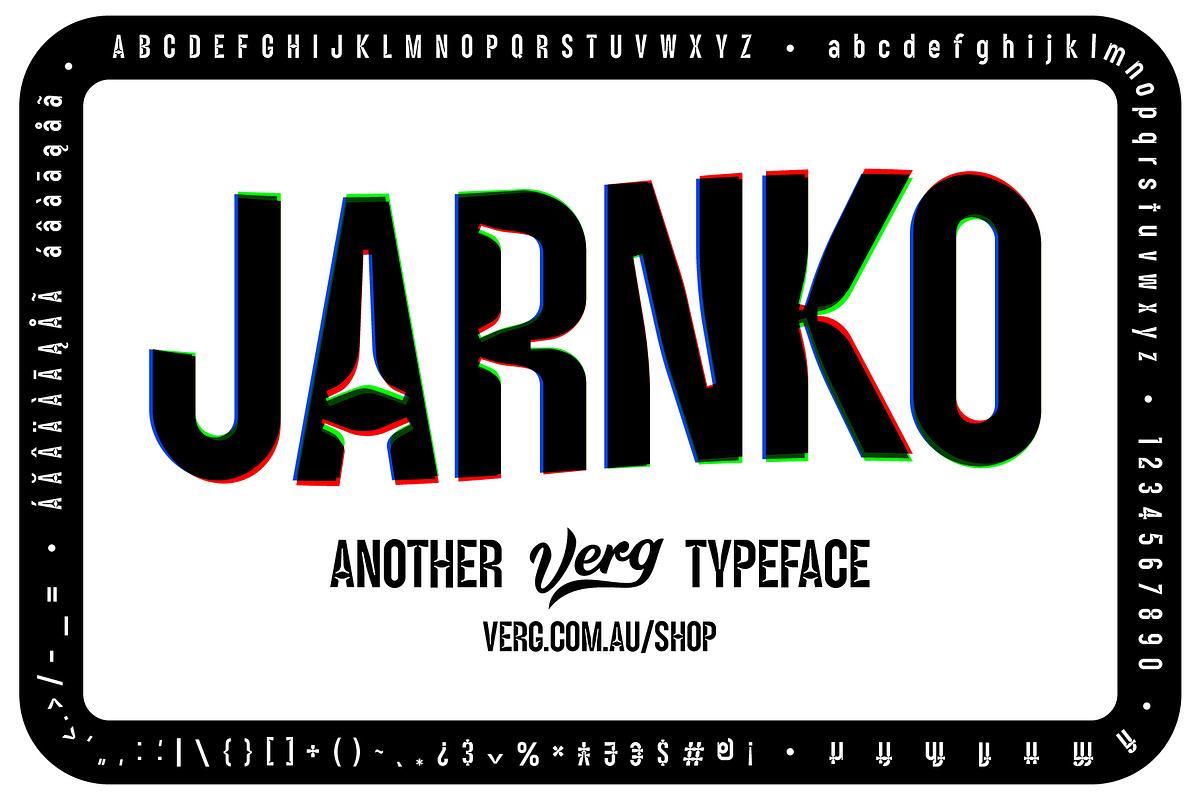
Jarnko Font Free Download is a modern, versatile typeface designed to bring a contemporary touch to your projects. With clean lines, balanced proportions, and a stylish aesthetic, Jarnko is perfect for branding, editorial design, social media graphics, website headers, logos, and more.
This font’s contemporary design ensures that it looks both professional and approachable, making it suitable for a variety of creative and corporate applications. Whether you’re working on print or digital projects, Jarnko’s flexibility and clarity make it a great choice for any design that needs to make an impact.